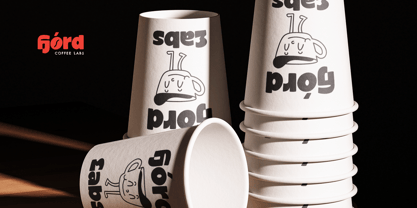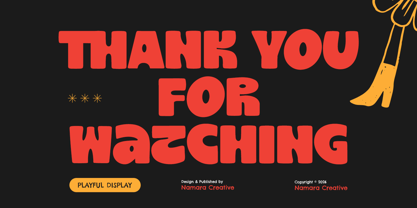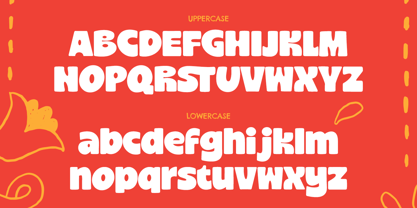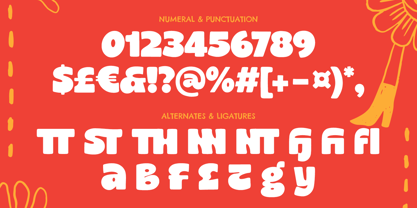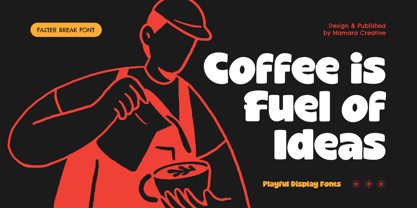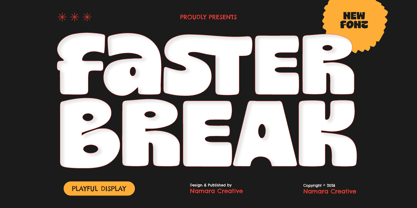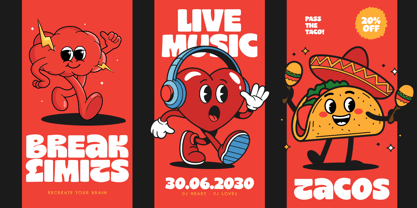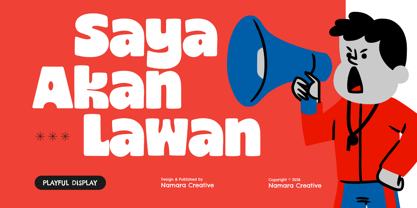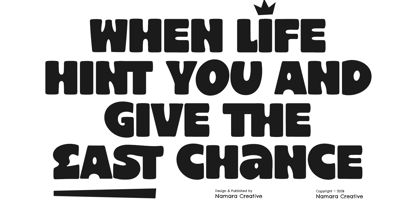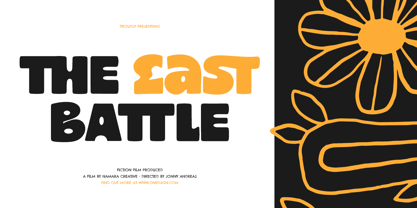
Faster Break
by Namara Creative Studio
The Faster Break Font Family was designed by Toni Setiawan and published by Namara Creative Studio. Faster Break contains 3 styles and family package options. More about this family
Inspired by modern pop aesthetics and playful typography, Faster Break combines bold proportions with friendly curves, making it the perfect choice for brands that want to communicate confidence, creativity, and fun.
From eye-catching logos to vibrant packaging and social media campaigns, Faster Break helps your designs leave a lasting impression.
FEATURES :
• Bold, Rounded Bubble Letterforms : Thick, even strokes and soft, friendly curves that read as confident rather than loud.
• Complete Character Set : Uppercase, Lowercase, numerals, and an extensive range of punctuation and symbols.
Perfect for :
• Bold Headline and Groovy Style Design.
• Logos and Brand Identity Design.
• Social Media and Advertising Design.
• Product Packaging, T Shirt design, Stickers and Labels.
Designers: Toni Setiawan
Foundry: Namara Creative Studio